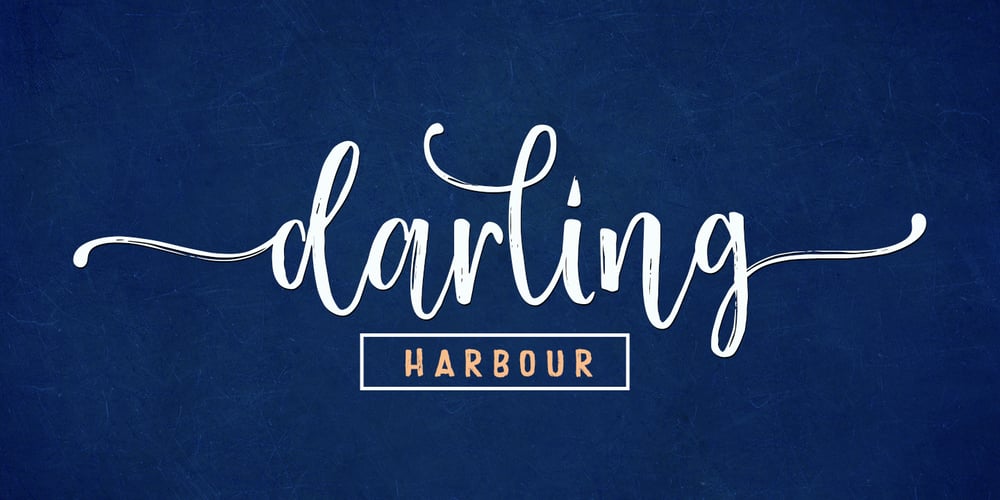
Darling Harbour
Darling Harbour font
Darling Harbour Font Family was designed by Ambia and published by Areatype. Darling Harbour contains 2 styles and family package options. Darling Harbour! Can used for various purpose such as titles, brands, logos, product packaging, posters, invitations, greeting cards, news, blogs, everything including personal charm etc.Darling Harbour features Open type feature, including initial and terminal letters, ligatures and International support for most Western Languages is included.To enable the OpenType Stylistic alternates, you need a program that supports OpenType features such as Adobe Illustrator CS, Adobe Indesign & CorelDraw X6-X7, Microsoft Word 2010 or later versions.How to access all alternative characters, using Windows Character Map with Photoshop:https://www.youtube.com/watch?v=Go9vacoYmBwHow to access all alternative characters using Adobe Illustrator:http://youtu.be/iptSFA7feQ0nnDarling Harbour is coded with PUA Unicode, which allows full access to all the extra characters without having special designing software. Mac users can use Font Book , and Windows users can use Character Map to view and copy any of the extra characters to paste into your favorite text editor/app.